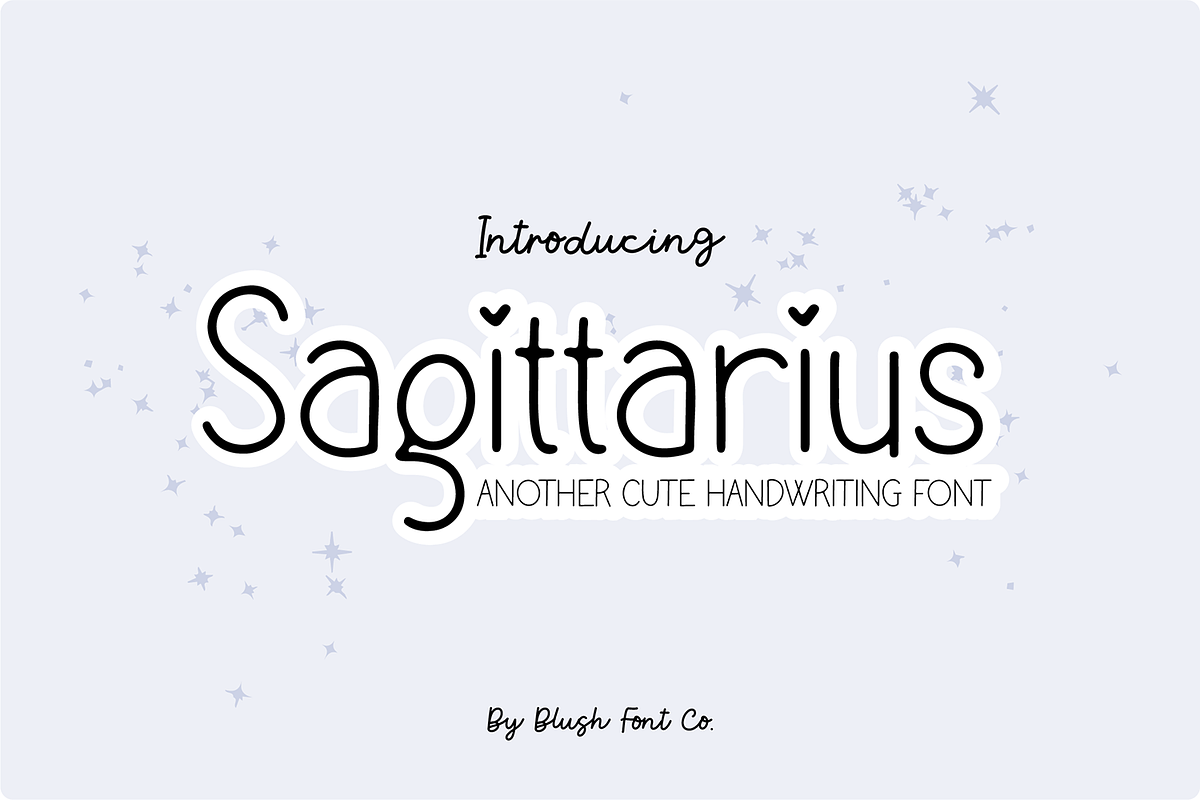
Sagittarius Cute Handwriting Font Free Download
Sagittarius Cute Handwriting Font Free Download is a sweet and playful typeface that brings charm and personality to every design. With its casual strokes and handwritten feel, it’s perfect for planners, greeting cards, social media posts, children’s designs, and lifestyle branding. This font radiates warmth and positivity, making it a go-to choice for cheerful, heartwarming visuals.
Its rounded forms and natural flow give Sagittarius a friendly and approachable vibe, while still maintaining excellent readability. Whether you're writing out a favorite quote or creating a cozy product label, this font adds a personal, handcrafted touch that stands out.